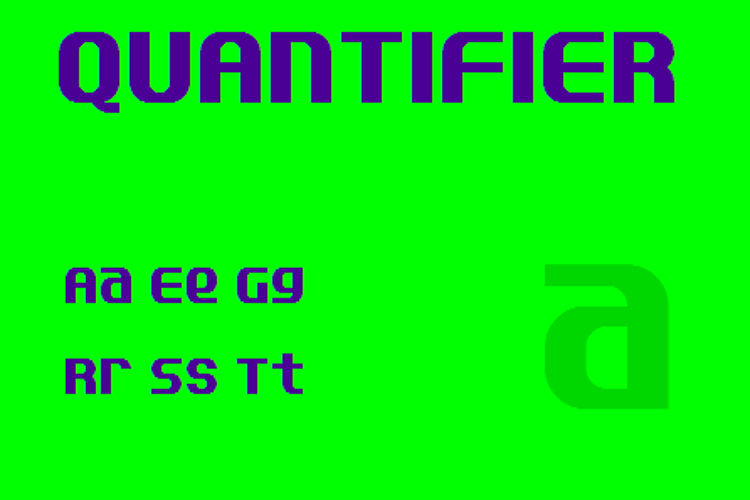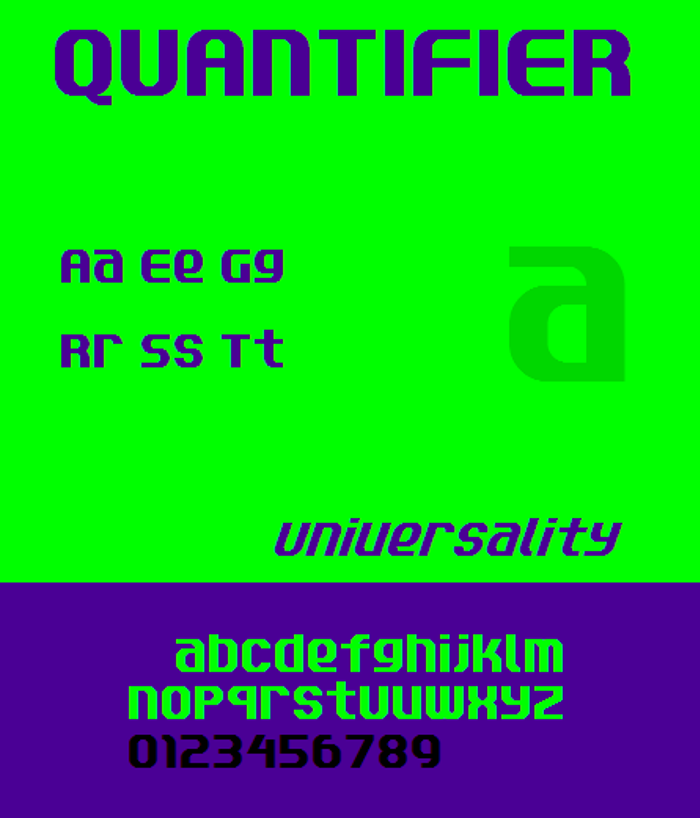
Quantifier NBP Font
Inspired by various novelty designs popular in the 1980s and '90s, including the Nintendo Entertainment System logotype and Handel Gothic.
11 years agoLooks like a great font for advertising electronics